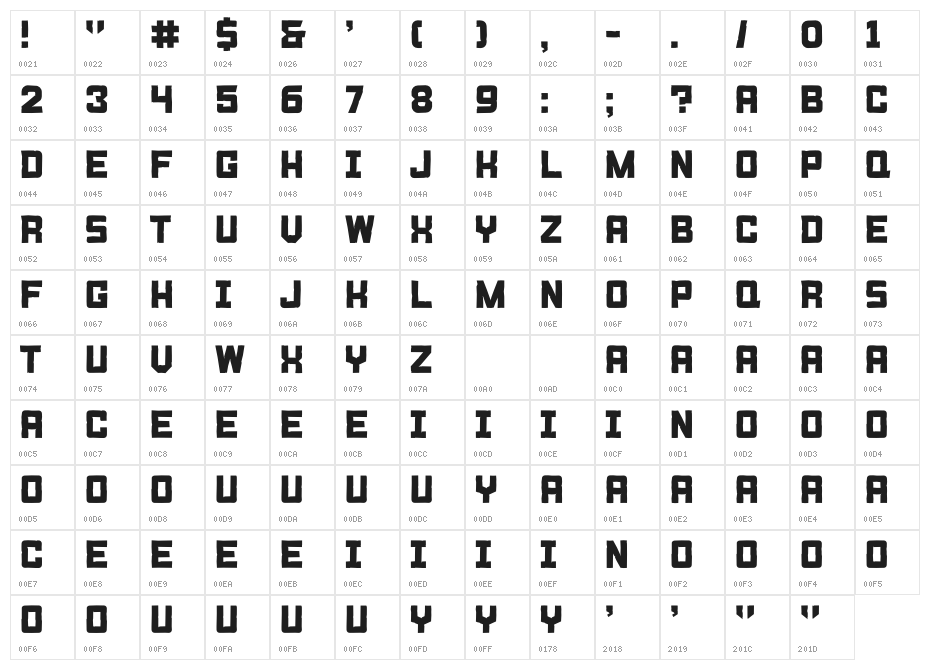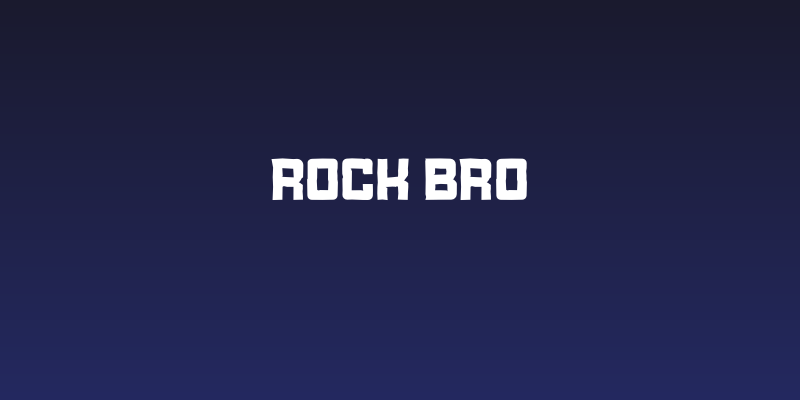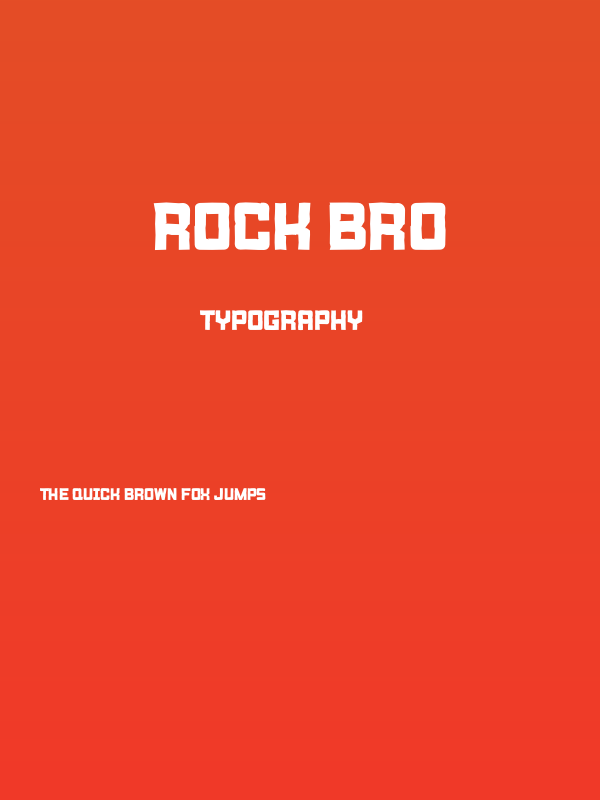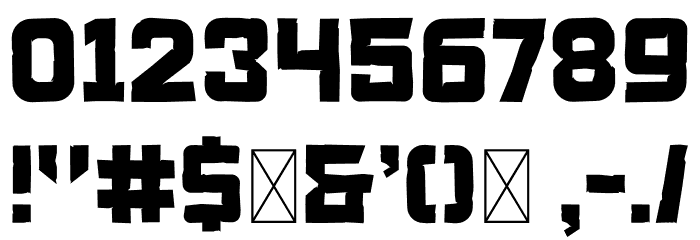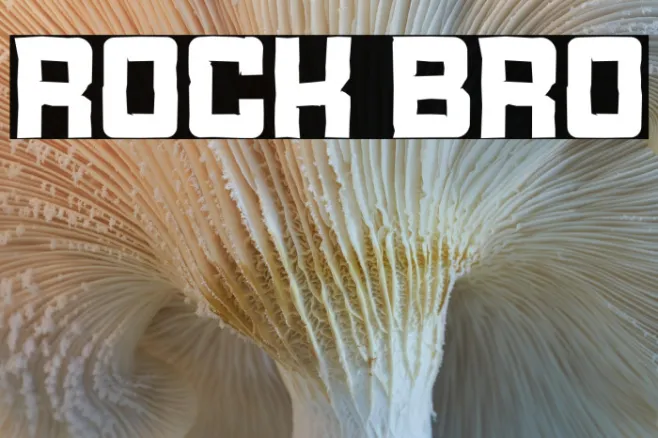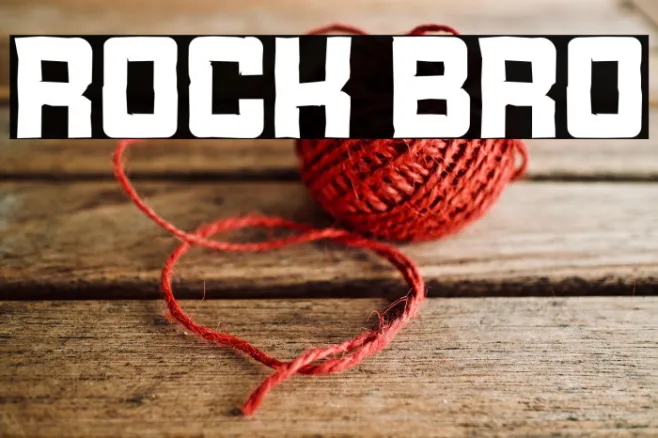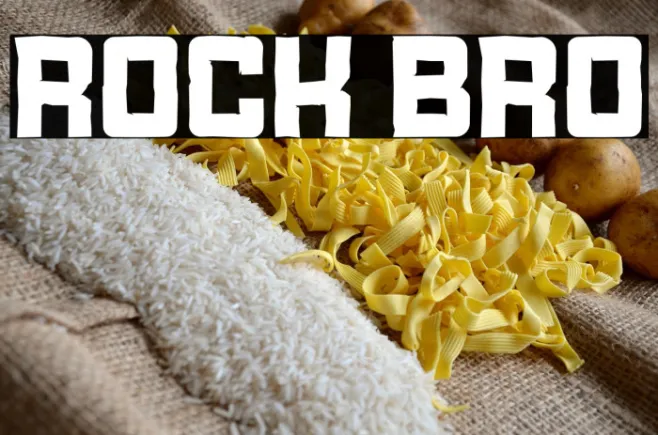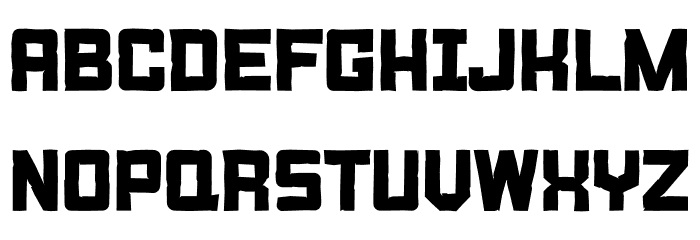
Rock Bro Font
Rock Bro Description
This bold and striking font features a rugged, block-like appearance with a strong presence. The characters are designed with sharp edges and a slightly distressed look, giving them a raw and powerful aesthetic. The uppercase letters are uniform in height, while the lowercase letters maintain a consistent style, ensuring readability. The numbers and special characters are crafted to match the boldness of the alphabet, making them suitable for impactful designs. The overall style is reminiscent of industrial or urban themes, perfect for projects that require a strong visual impact.
| Overall Style | Industrial, Urban |
| Proposed Projects | Ideal for posters, logos, branding, and any design requiring a strong, industrial look. |